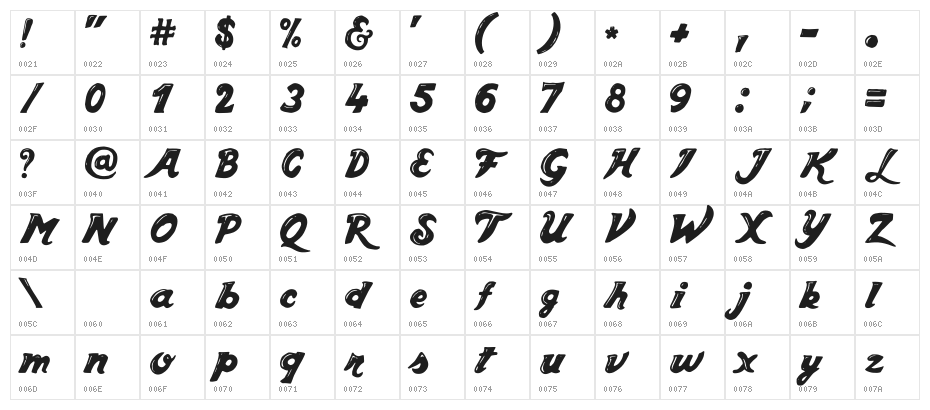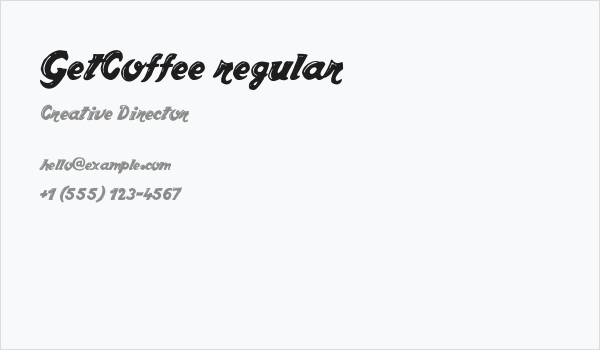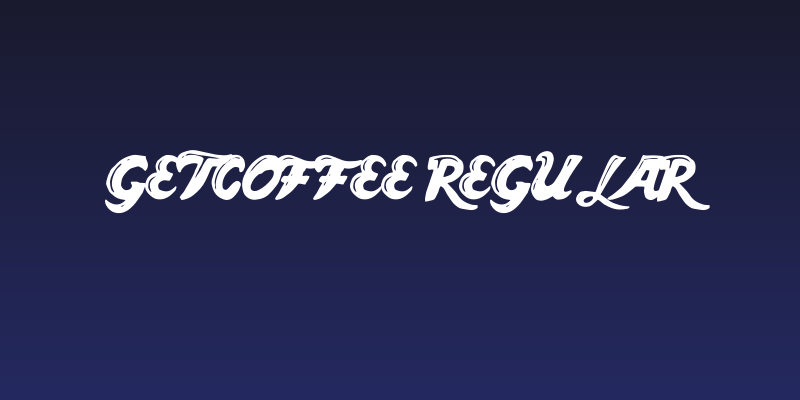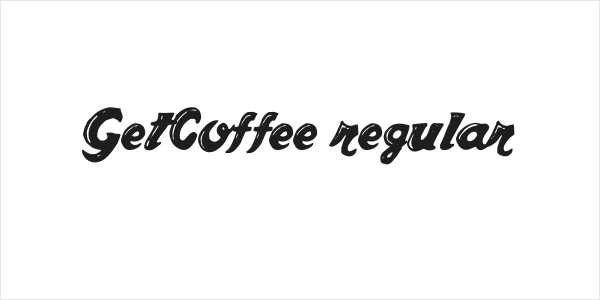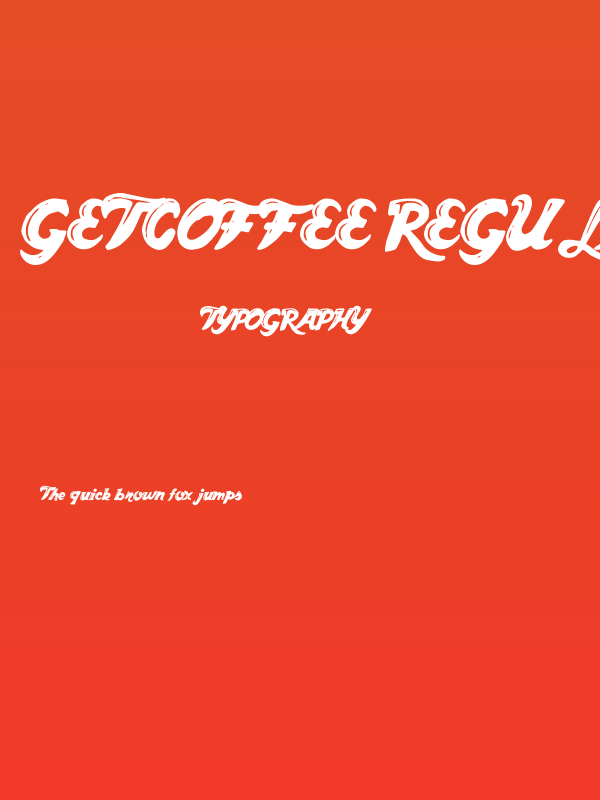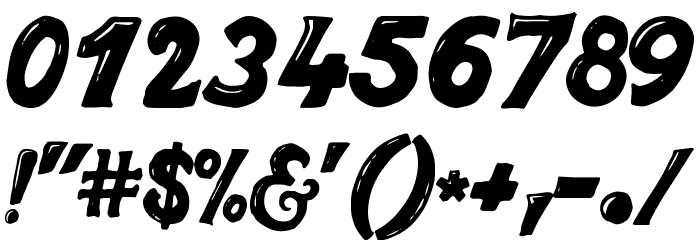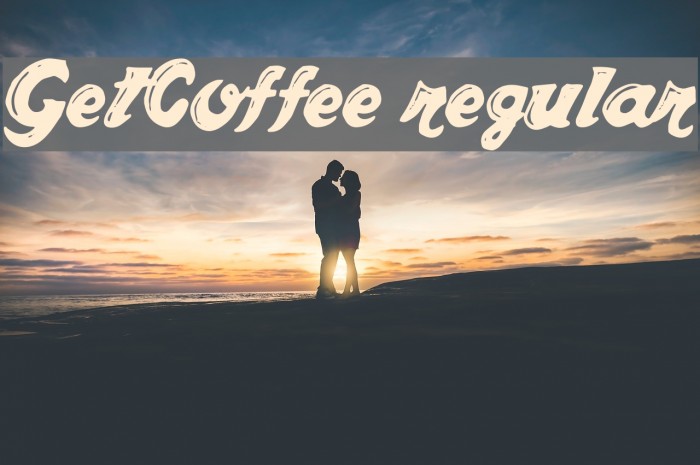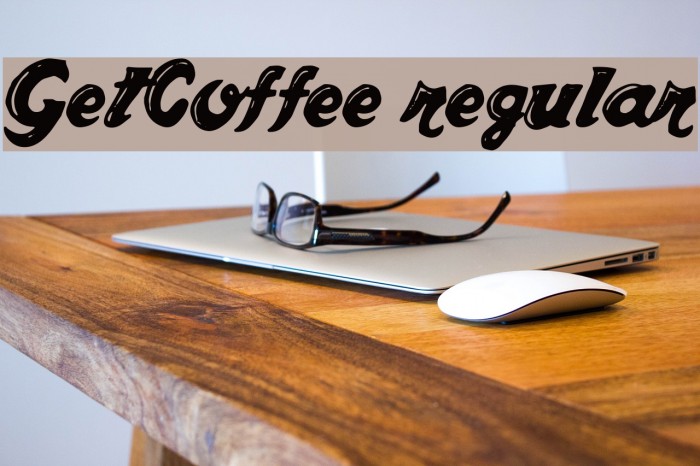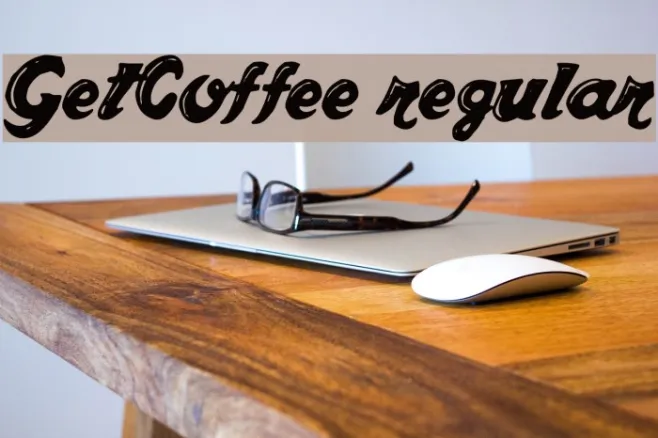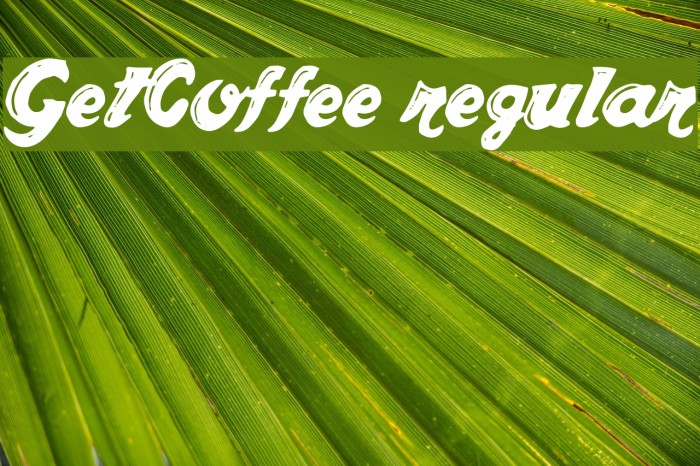
GetCoffee regular Font
GetCoffee regular Description
This font features a bold and dynamic script style with a strong presence. The characters are interconnected, giving a sense of fluidity and movement. The strokes are thick and expressive, with a slight slant that adds to its energetic appearance. The uppercase letters are particularly striking, with exaggerated curves and flourishes that make them stand out. The lowercase letters maintain the same boldness, ensuring consistency across the typeface. Numbers and special characters are designed with the same attention to detail, providing a cohesive look. This font is ideal for projects that require a bold and lively aesthetic.